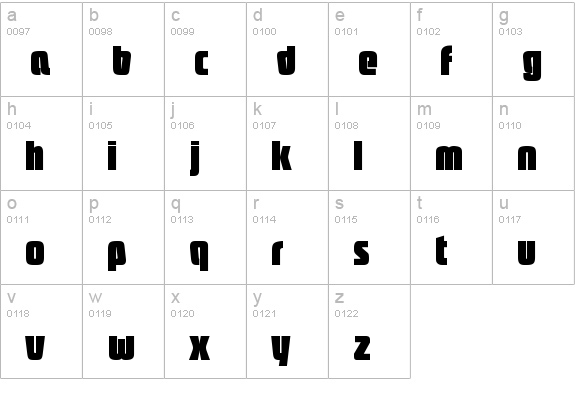
Boozle Display SSi Font Details
Boozle Display SSi font is a stylish and eye-catching typeface that is perfect for adding a touch of sophistication to your design projects. With its bold and modern look, this font is sure to make a statement and grab the attention of your audience. Boozle Display SSi font is versatile and can be used for various purposes such as logos, posters, headlines, and more. The best part about Boozle Display SSi font is that it is available for free download at FontsMarket.com. This means that you can easily access this font and start using it in your projects without any cost. Whether you are a professional designer or just getting started with typography, Boozle Display SSi font is a great addition to your font collection. Download it today and elevate your designs with this sleek and modern typeface.